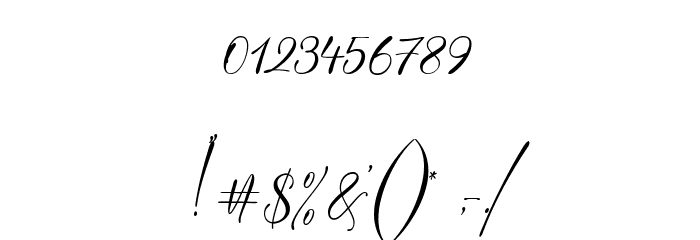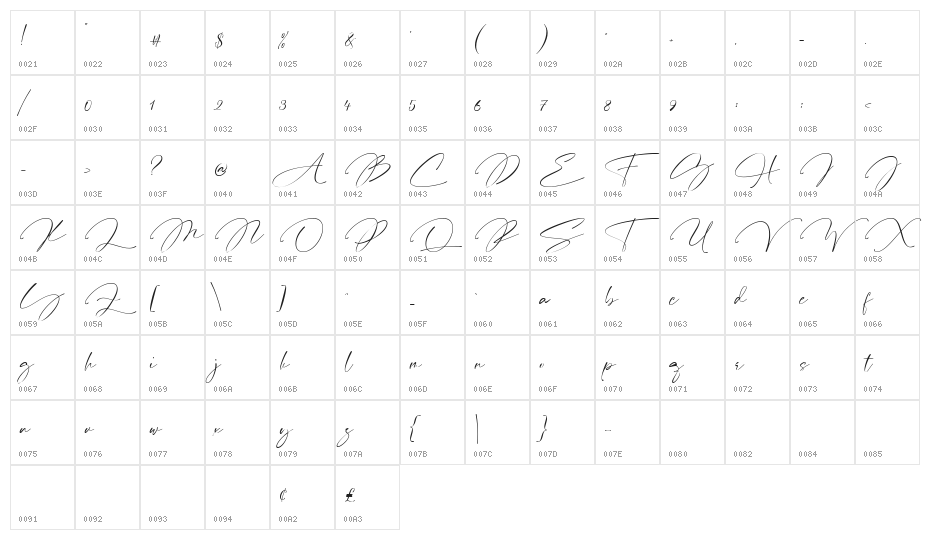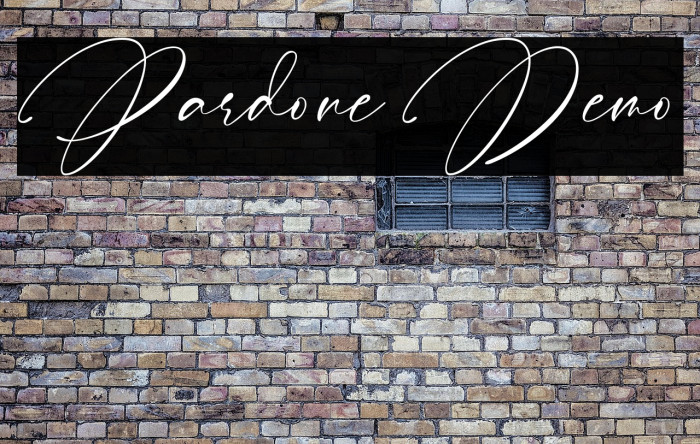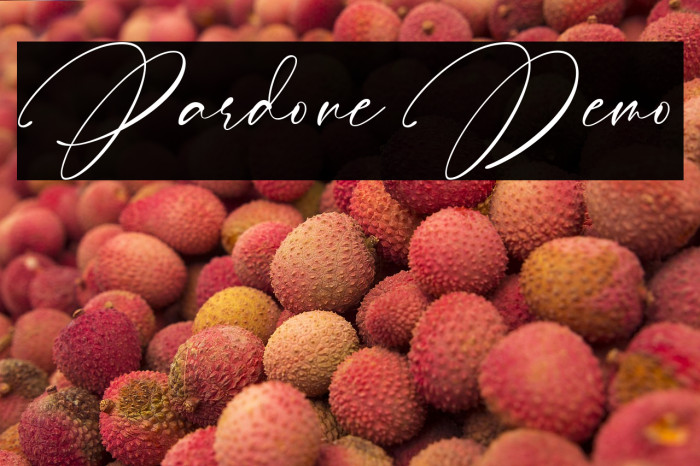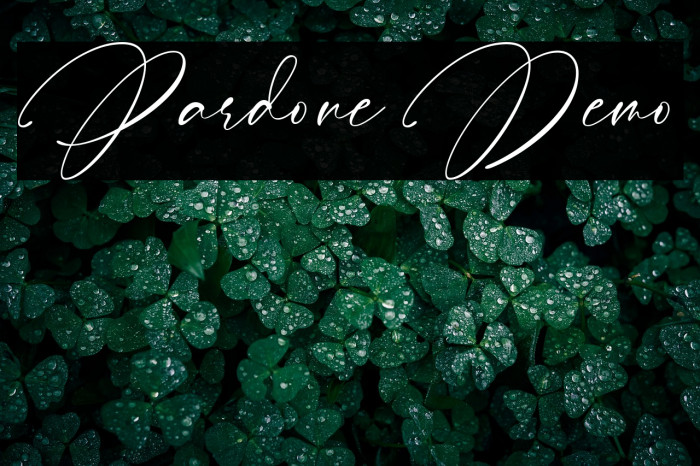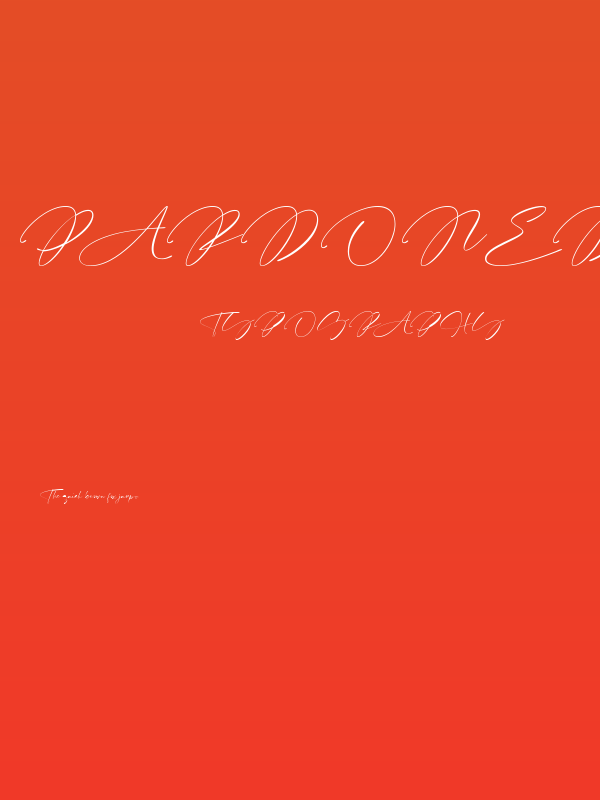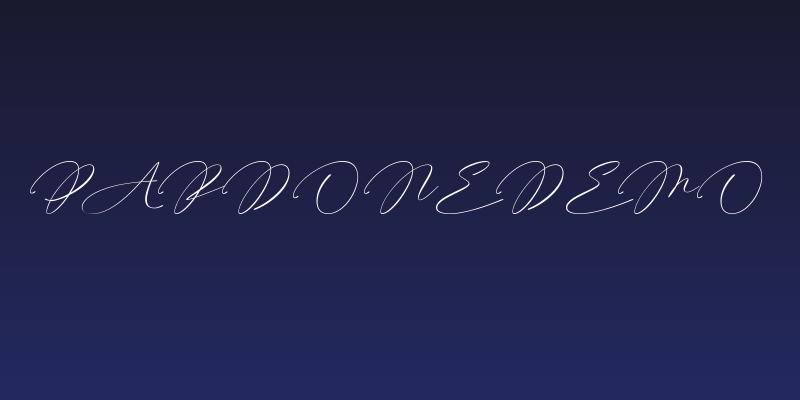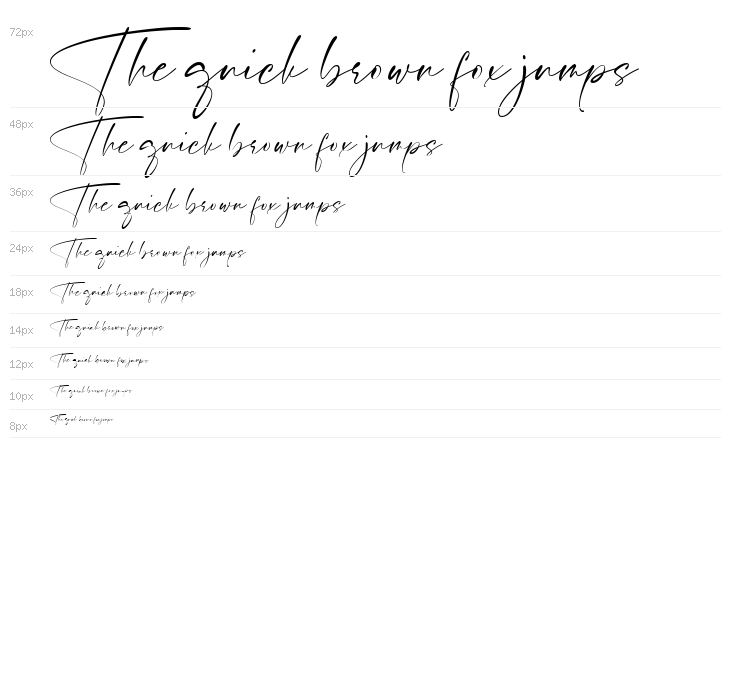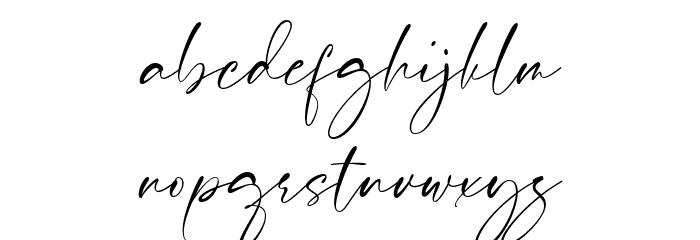
Pardone Demo Font
Pardone Demo Description
This elegant script font features flowing, interconnected letters that exude a sense of sophistication and grace. The uppercase letters are tall and slender, with delicate loops and flourishes that add a touch of whimsy. The lowercase letters maintain a consistent style, with smooth curves and a slight slant that enhances readability. The numerals are designed to match the overall aesthetic, offering a cohesive look. Special characters are thoughtfully crafted, ensuring they blend seamlessly with the rest of the font. This font is perfect for projects that require a personal, handwritten touch.
| Use Case | Logos, Invitations, Personal stationery |
| Proposed Projects | Ideal for wedding invitations, elegant branding, personal stationery, and artistic projects. |